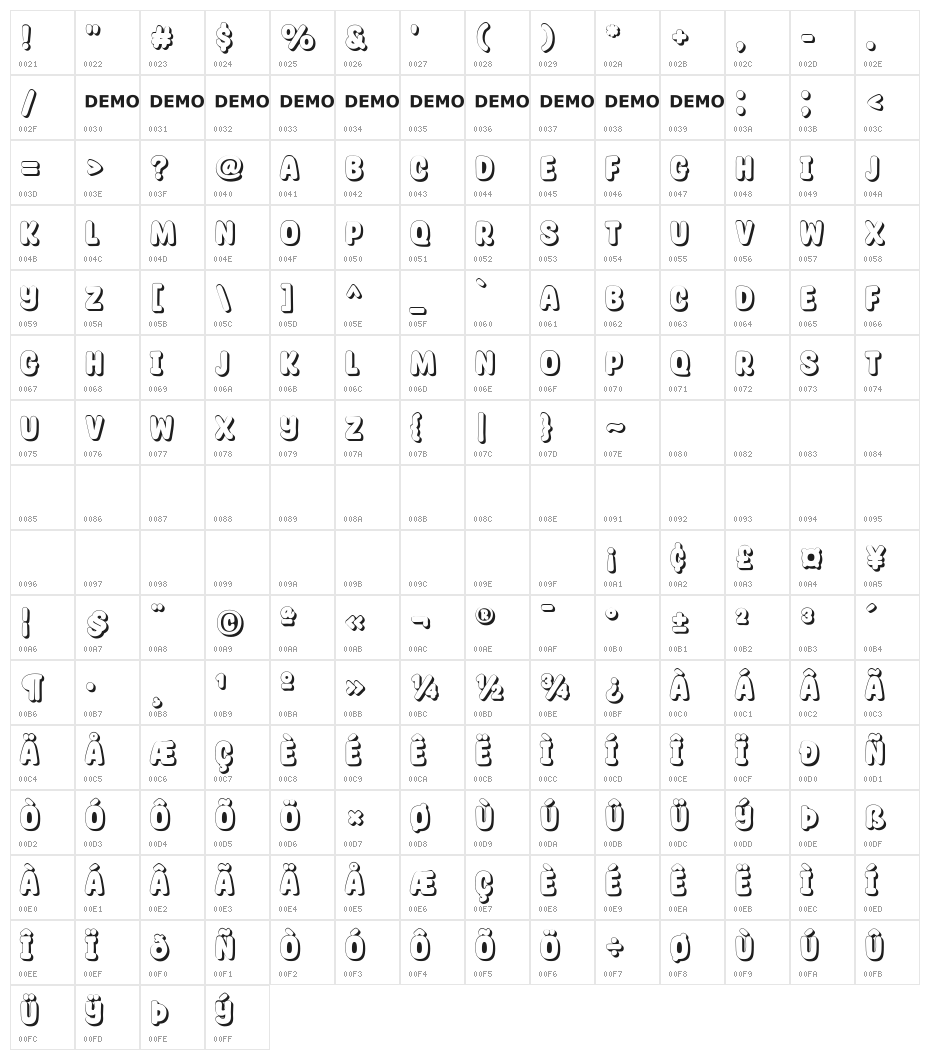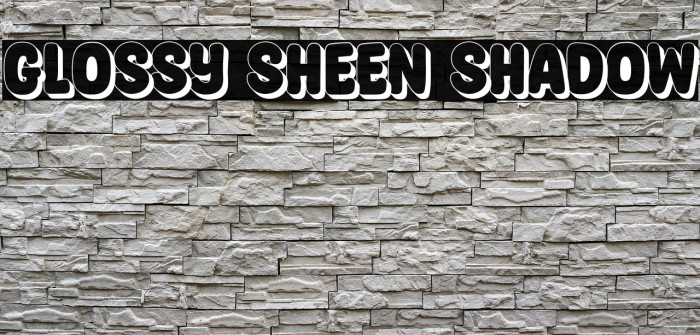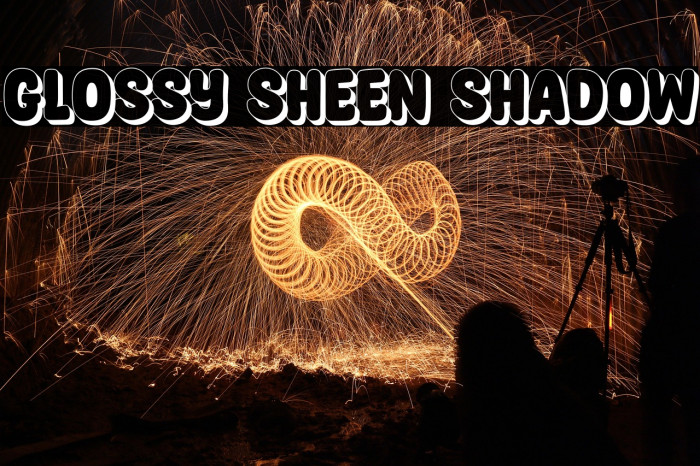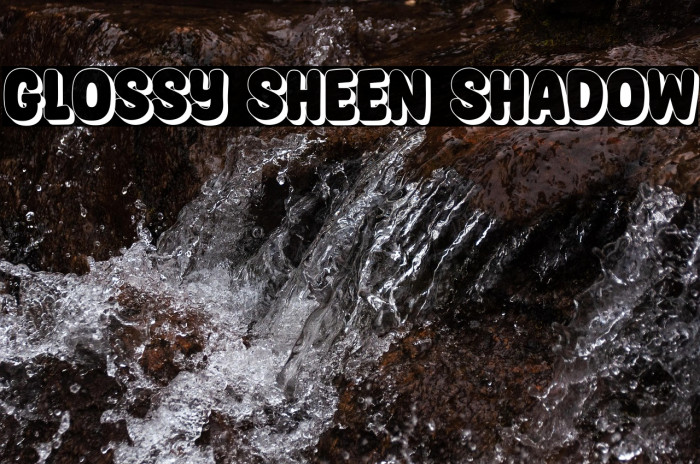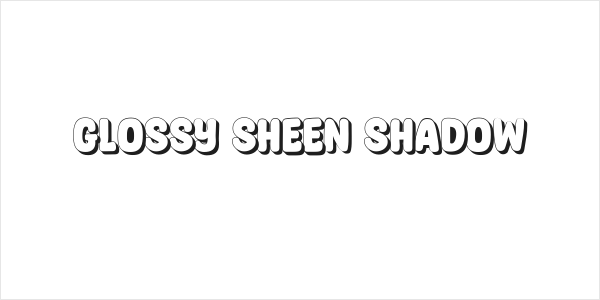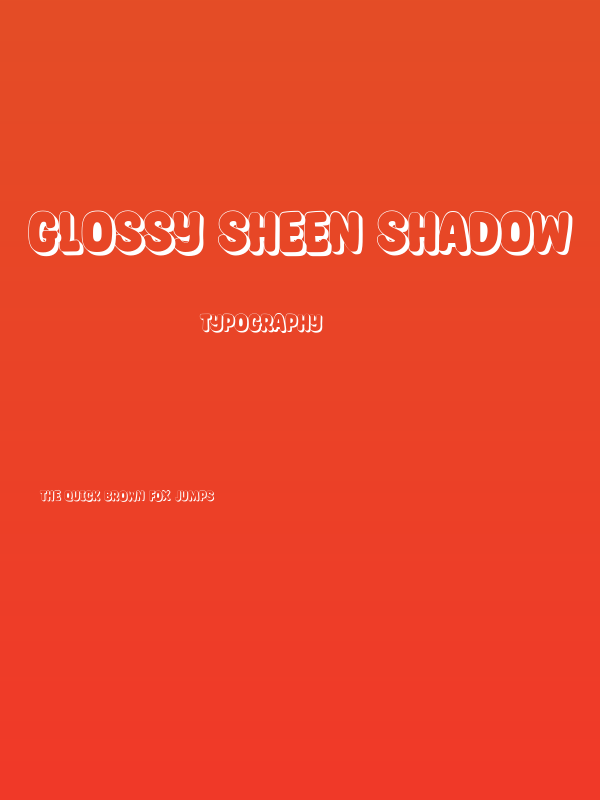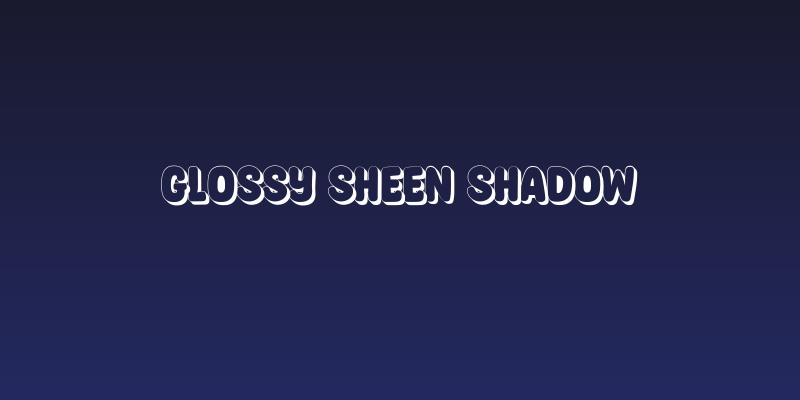
Glossy Sheen Shadow Font
Glossy Sheen Shadow Description
This font features a bold, playful style with a glossy sheen and shadow effect that gives it a three-dimensional appearance. The characters are rounded and thick, creating a sense of fun and whimsy. The shadow adds depth, making each letter pop off the page. This style is eye-catching and ideal for designs that require a lively and dynamic look. The uppercase and lowercase letters maintain consistency in their boldness, and the numbers and special characters are designed to match the overall aesthetic. The font's unique appearance makes it suitable for projects that aim to stand out and capture attention.
| Overall Style | Playful, Modern |
| Proposed Projects | Ideal for children's book covers, playful branding, event posters, and eye-catching advertisements. |